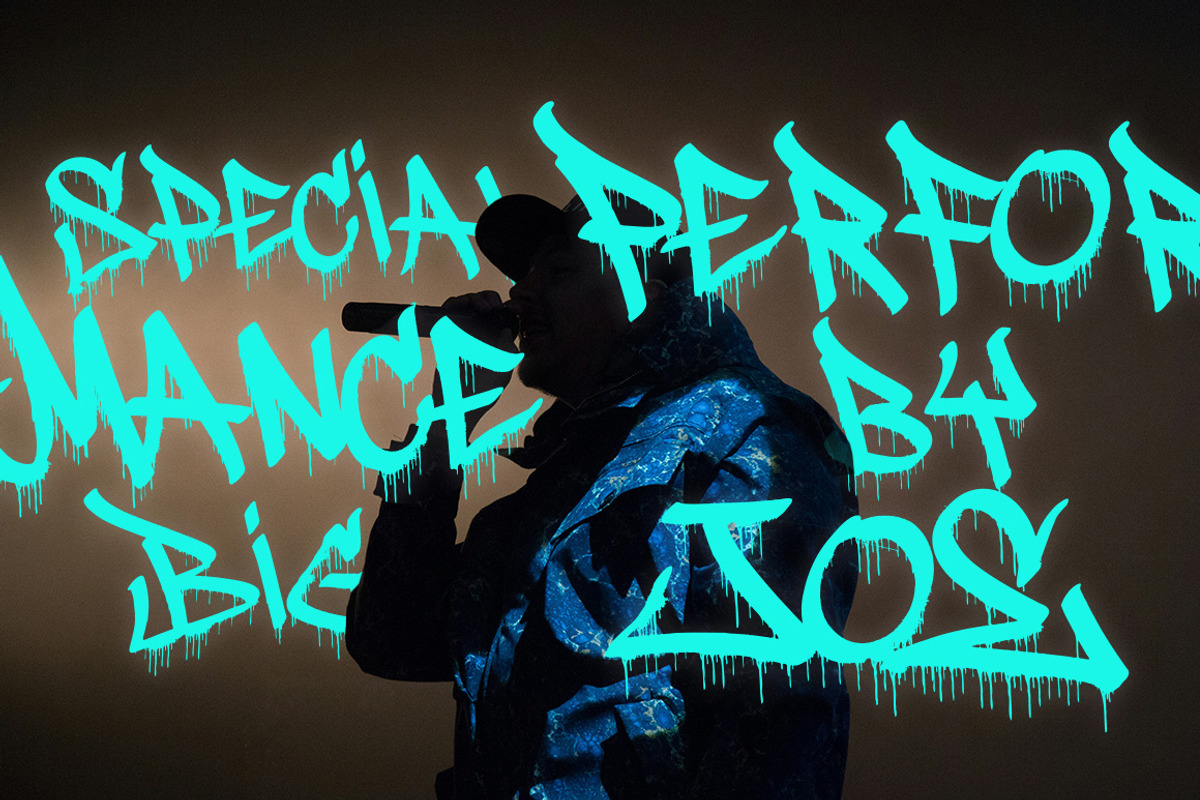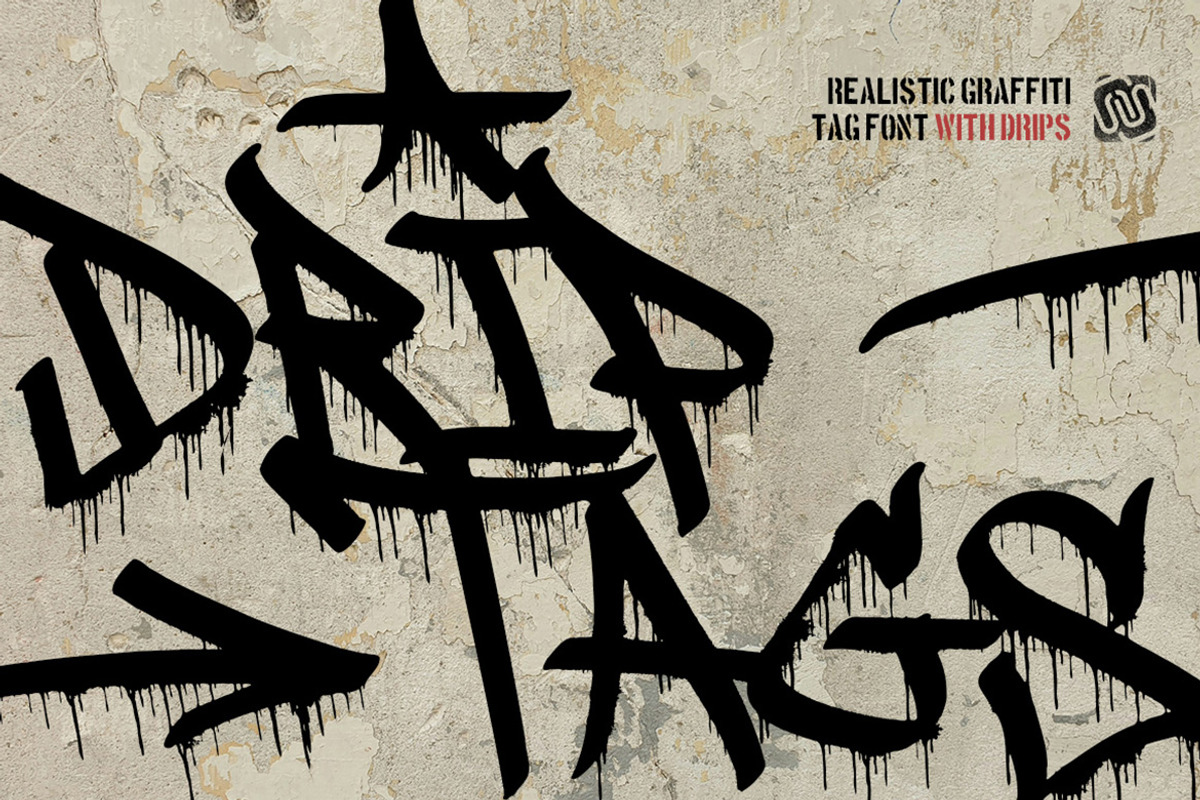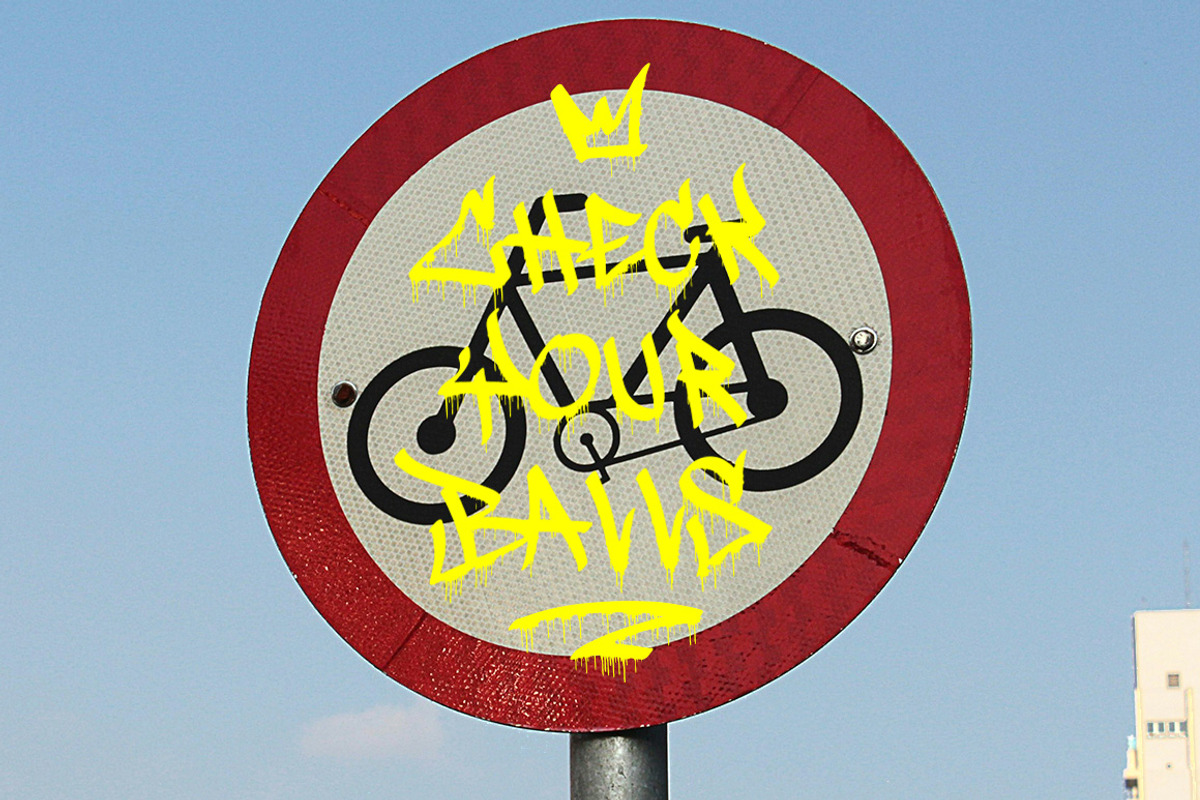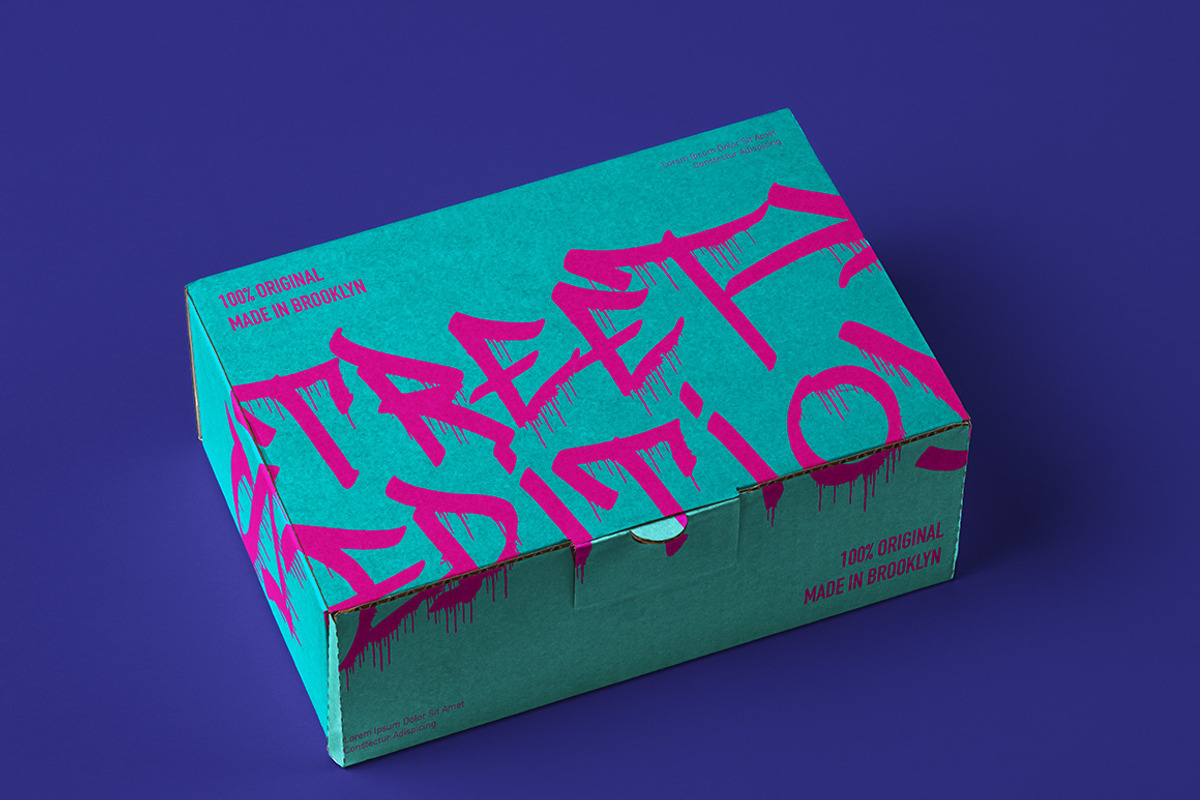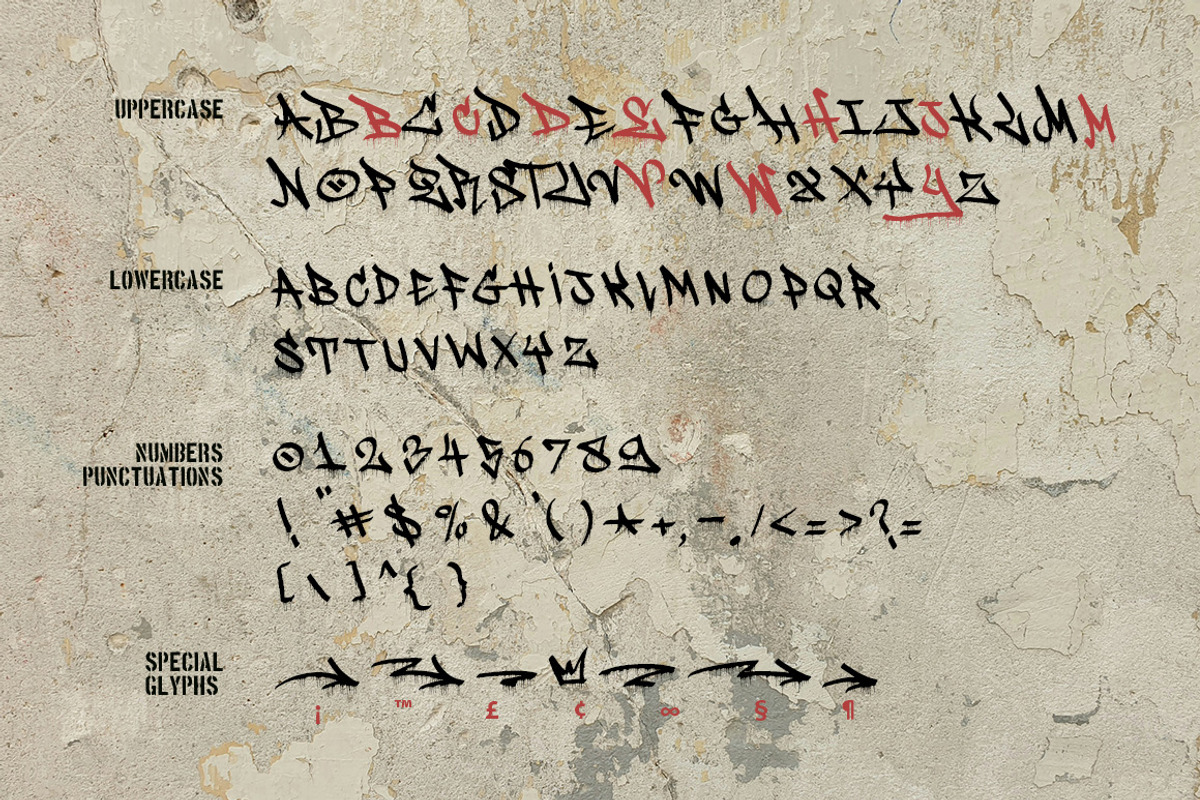
Drip Tags - Graffiti Marker Fonts
Drip Tags is a raw graffiti tagging font inspired by real street experience as a graffiti bomber. Built from the energy of the streets, this font comes with natural drip effects that flow directly from each letter, creating an authentic marker bleed look just like tags found on walls, trains, and alleyways.
Every character feels alive and imperfect, embracing the uncontrolled beauty of street graffiti. The drips are integrated directly into the letterforms, giving Drip Tags a bold, organic, and expressive style without the need for extra effects.
Uppercase letters are designed to work best as leading or ending characters in a word, adding emphasis and attitude. If the result feels too aggressive or unbalanced, you’re encouraged to explore alternative placements to match your own style.
Kerning and spacing have been carefully adjusted to achieve the best overall flow, but graffiti is personal by nature feel free to fine-tune spacing to fit your unique composition and visual rhythm.